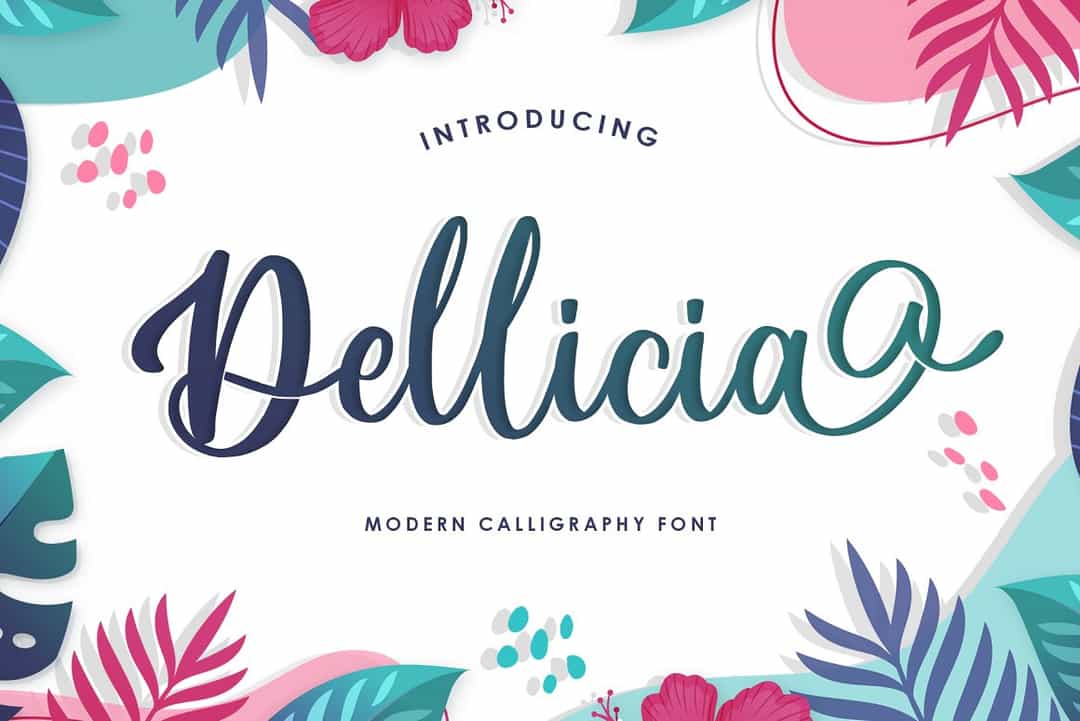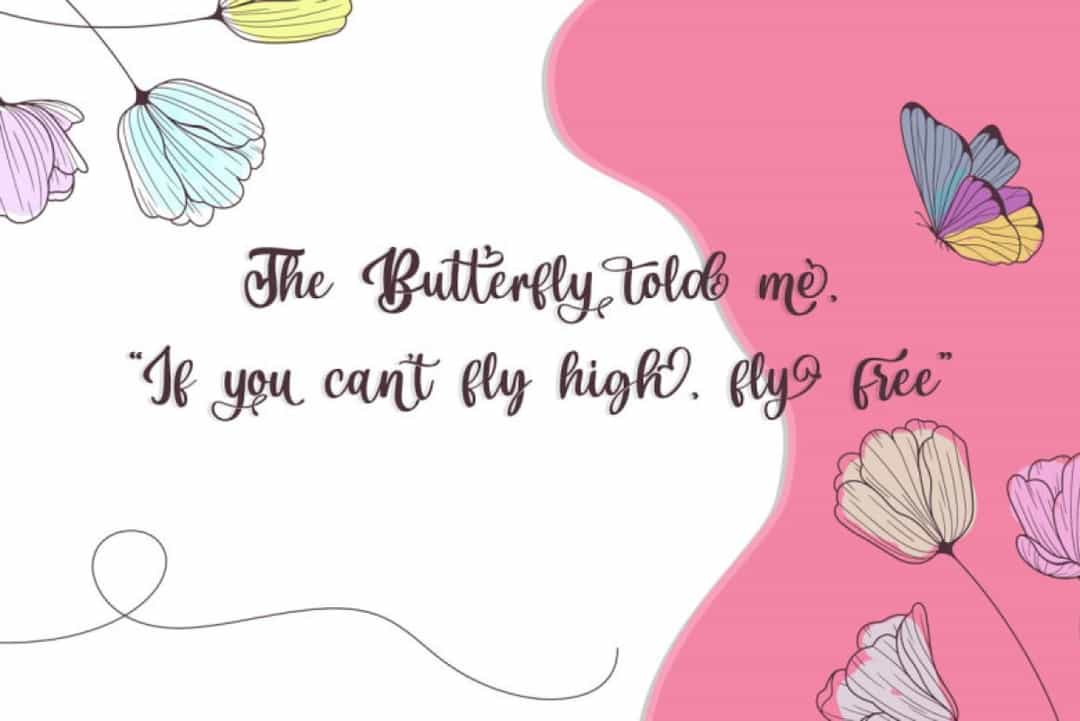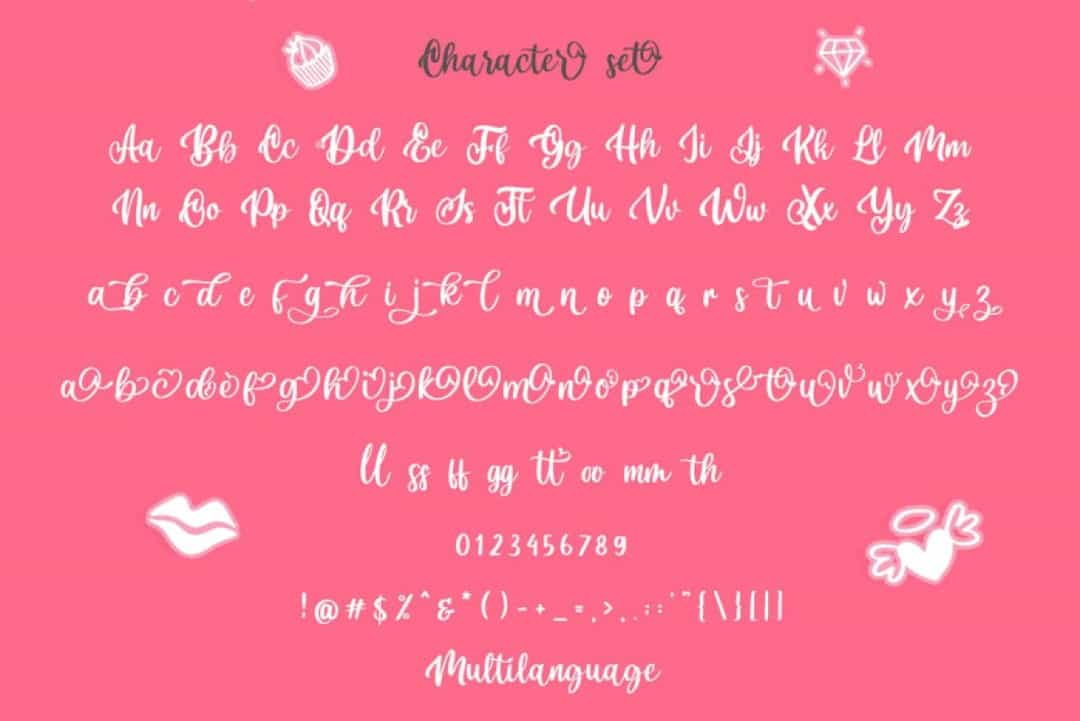
Dellicia Font is an elegant feminine calligraphy style script font designed with careful handcrafting that will become one of your favorites. Its casual charm gives it an approachable, readable, and ultimately versatile appearance that you are sure to adore. Dellicia Font makes an impressionful statement in any setting.